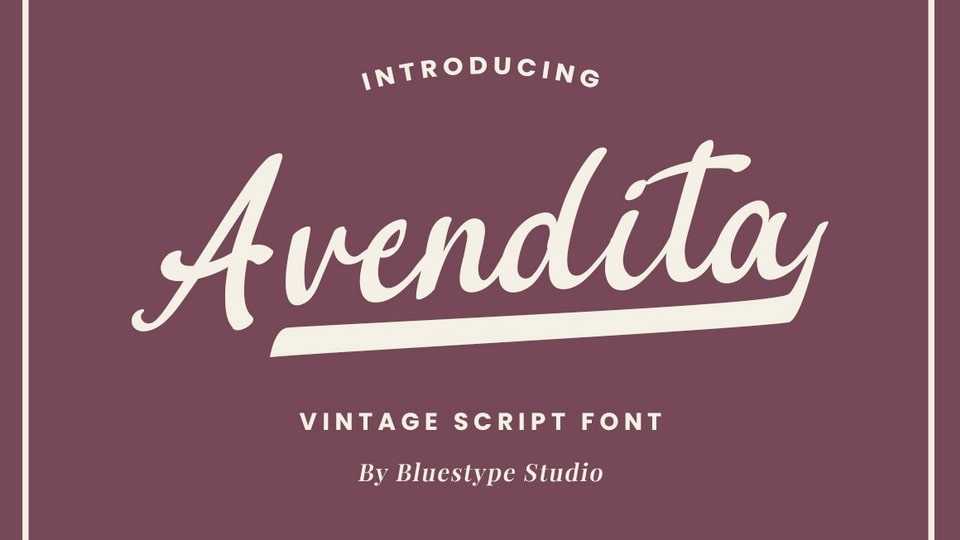
Download Avendita font, a vintage and neat handwritten script typeface. It maintains its classy calligraphic influences while feeling contemporary and fresh.